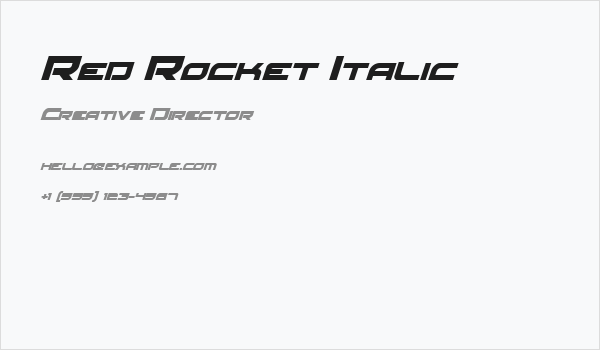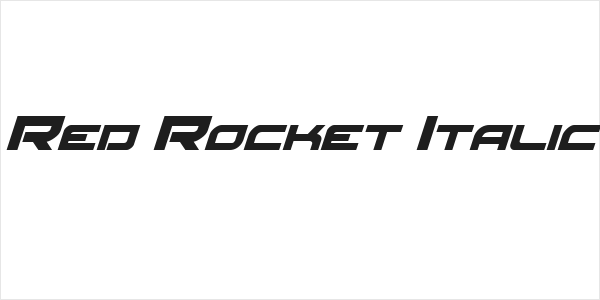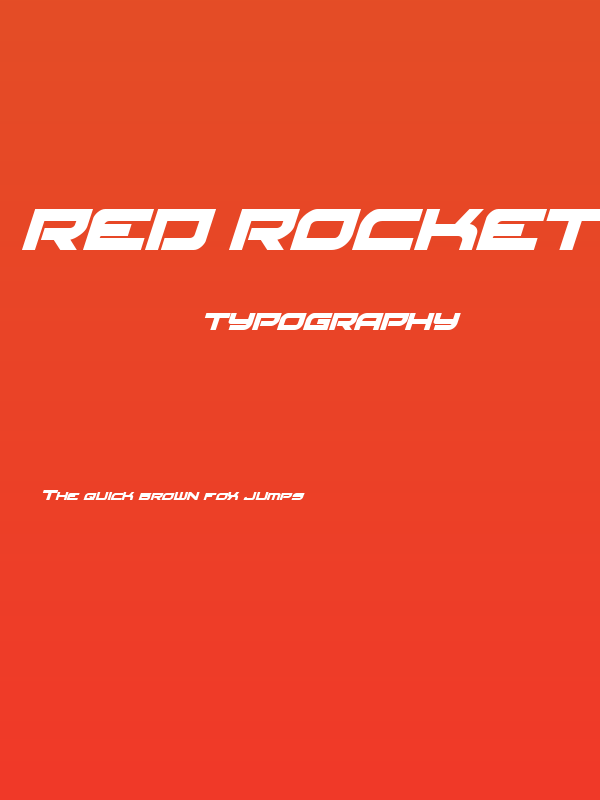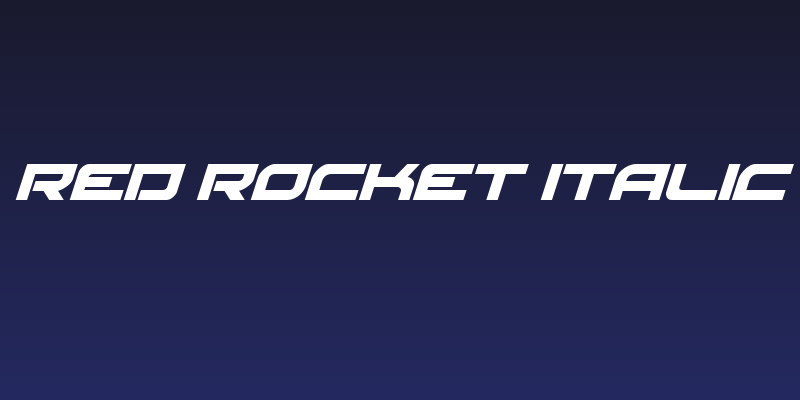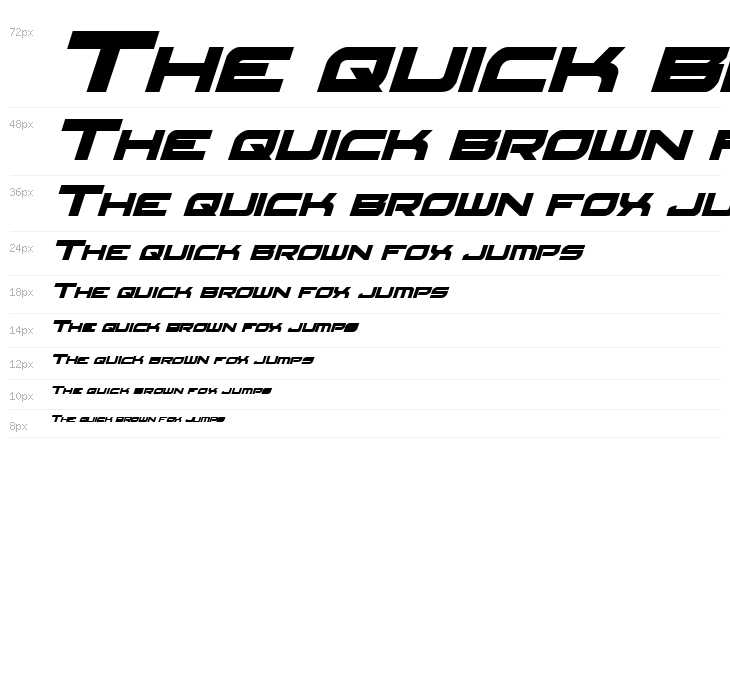
Red Rocket Italic Font
Red Rocket Italic Description
This font features a dynamic and futuristic design with a strong italic slant, giving it a sense of motion and speed. The characters are bold and angular, with sharp edges and a geometric structure that conveys a modern and tech-inspired aesthetic. The uppercase and lowercase letters maintain a consistent style, emphasizing uniformity and precision. Numbers and special characters follow the same design principles, ensuring a cohesive look across all elements. The font's boldness and unique style make it suitable for projects that require a standout, contemporary appearance.
| Use Case | Logos, Headlines, Branding |
| Proposed Projects | Ideal for tech-related branding, sports team logos, video game titles, and sci-fi themed designs. |